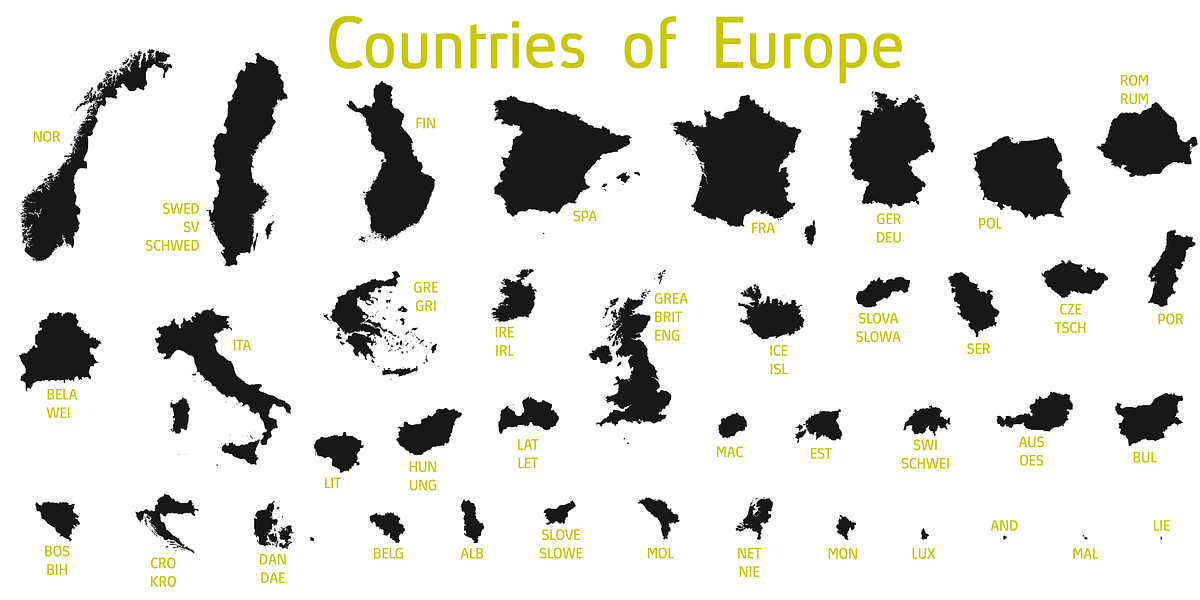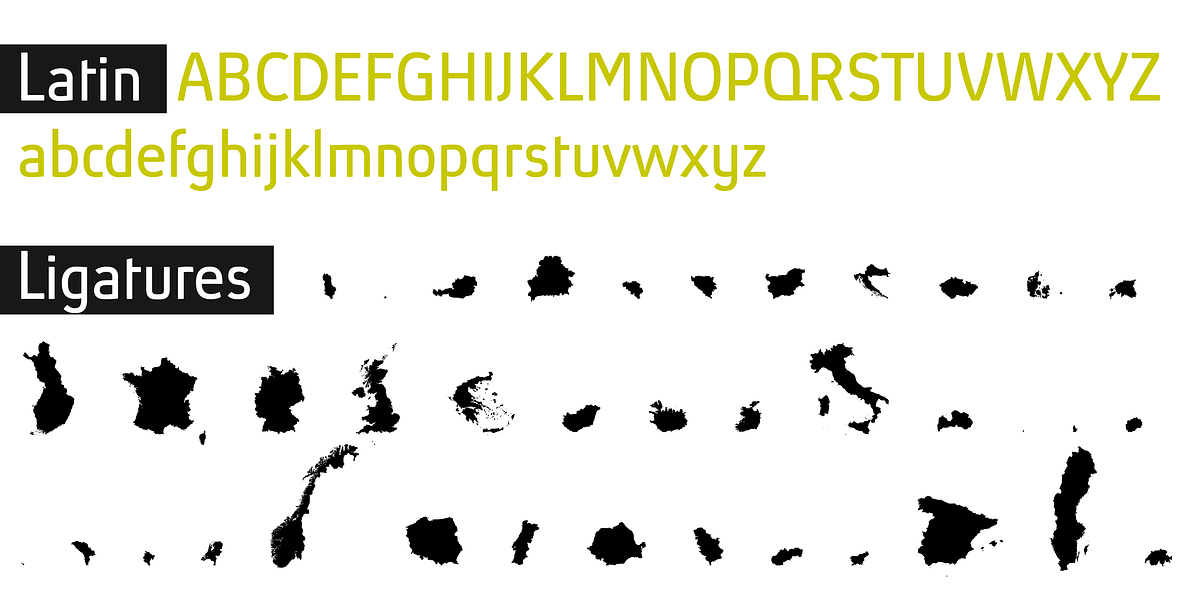
Countries Of Europe
The Europe font is a unique dingbat font where typing the first few letters of a European country's name generates its silhouette. This makes it a fun and educational tool for geography lessons or travel-related projects.